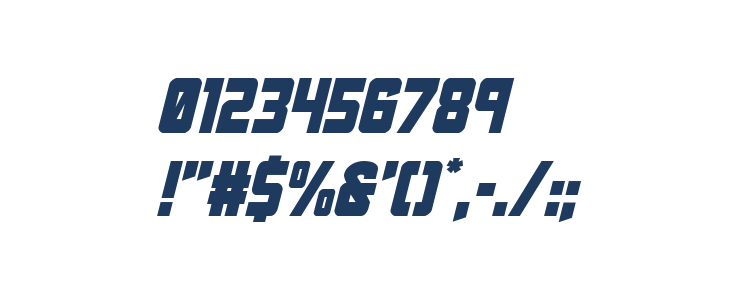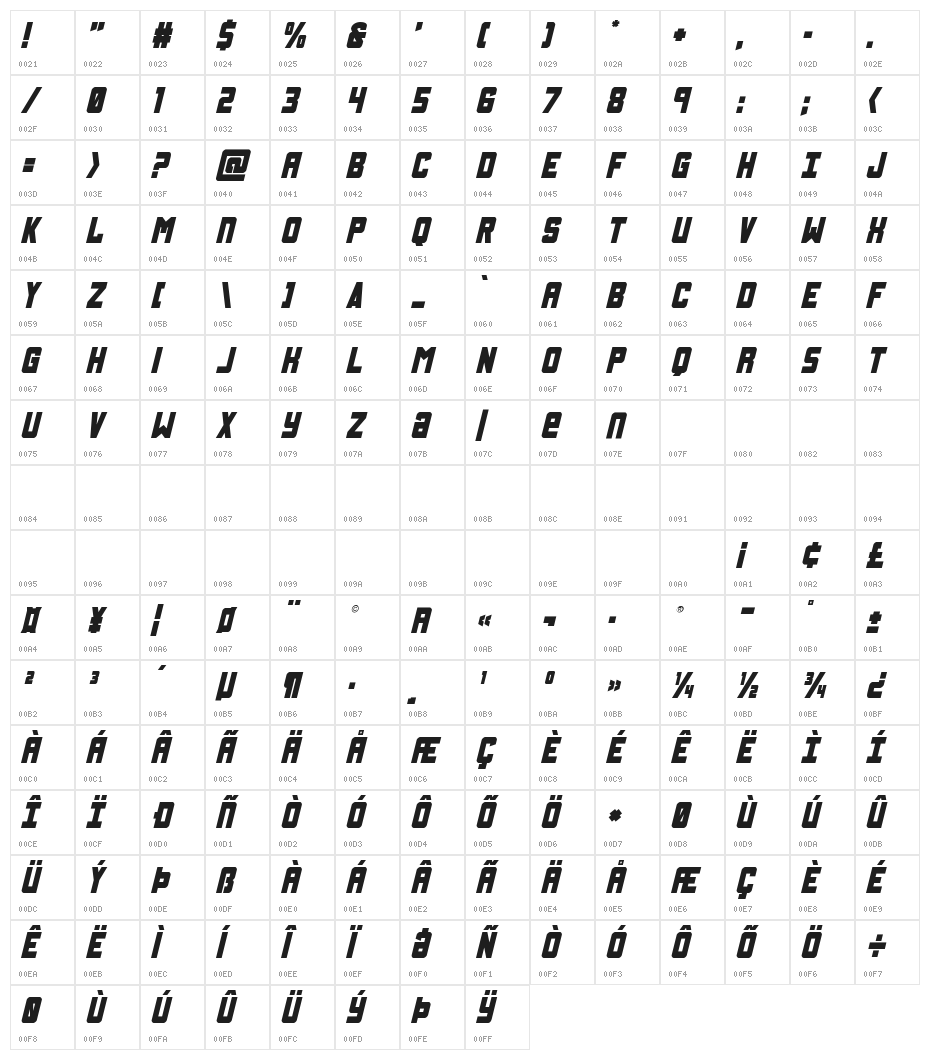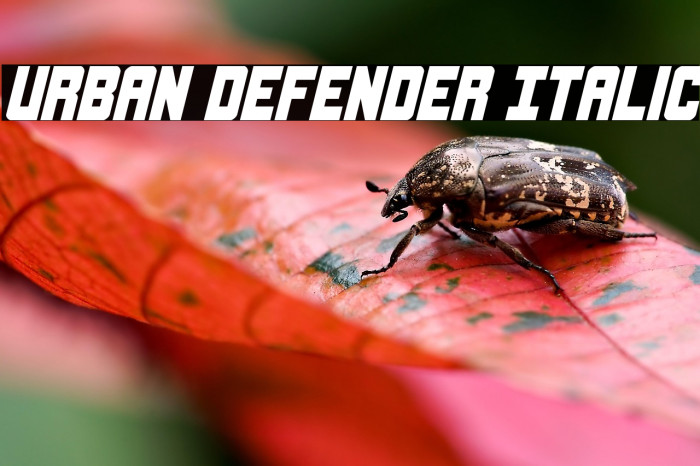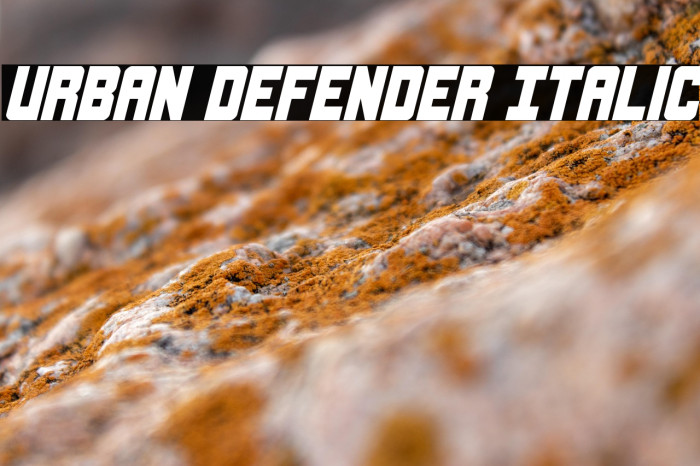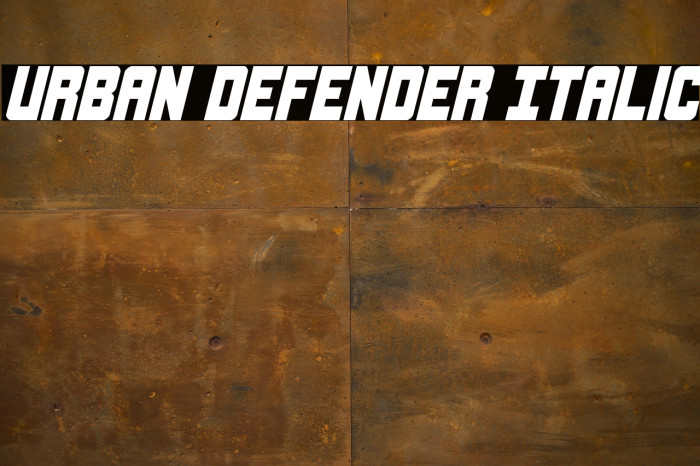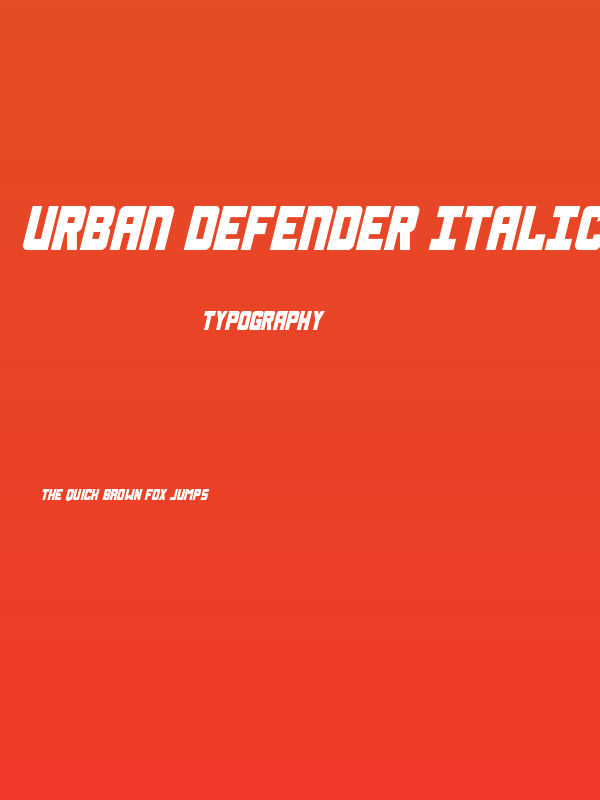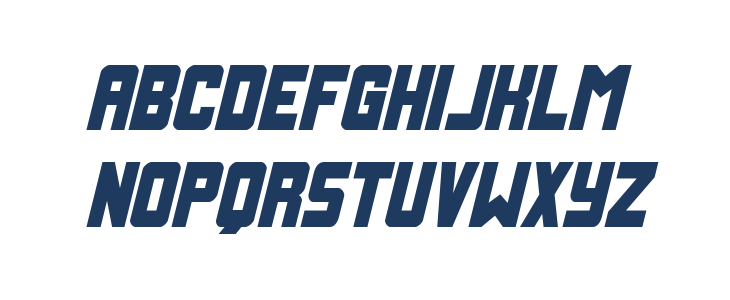
Urban Defender Italic Font
Urban Defender Italic Description
This font features a bold, italicized style with a strong, angular design. The characters are sharply defined with a modern, urban aesthetic, making it ideal for impactful headlines and attention-grabbing designs. The uppercase and lowercase letters maintain a consistent slant, enhancing the dynamic feel of the typeface. The numerals and special characters follow the same bold and italicized pattern, ensuring uniformity across all text elements. The font's thick strokes and geometric shapes contribute to its assertive and robust appearance, suitable for projects that require a commanding visual presence.
Proposed ProjectsIdeal for urban-themed posters, sports branding, dynamic headlines, and modern graphic design projects.